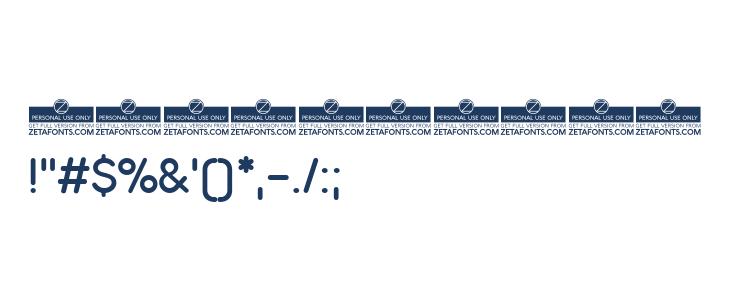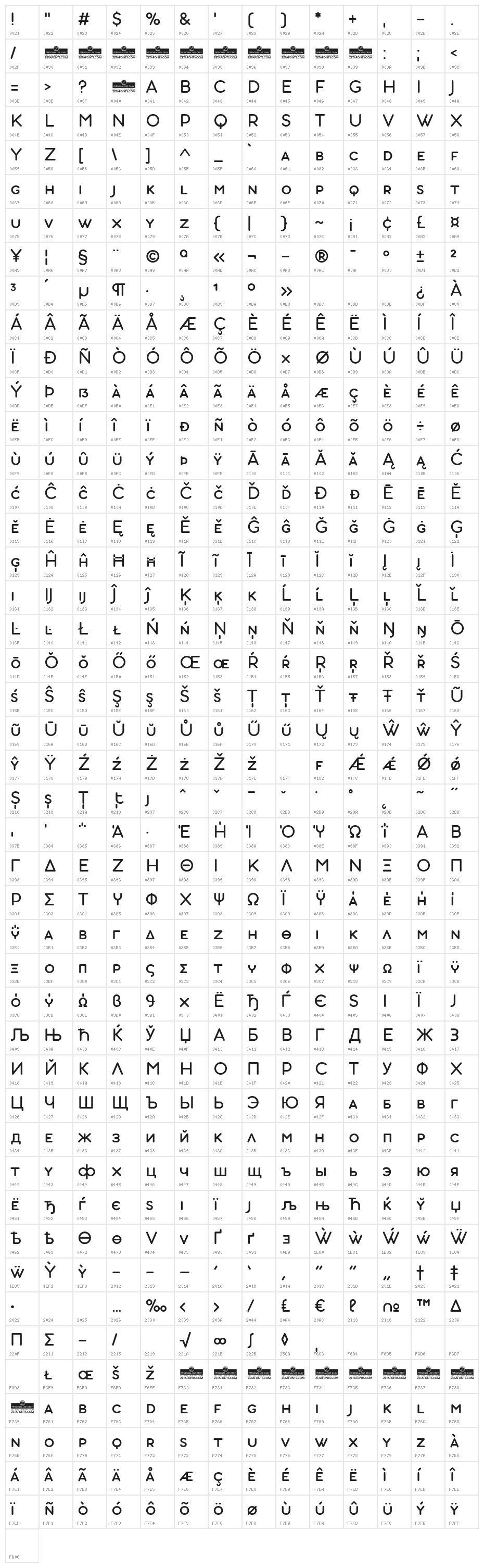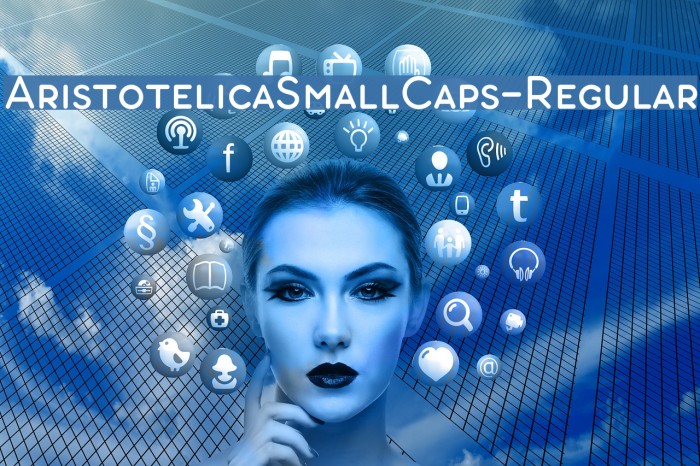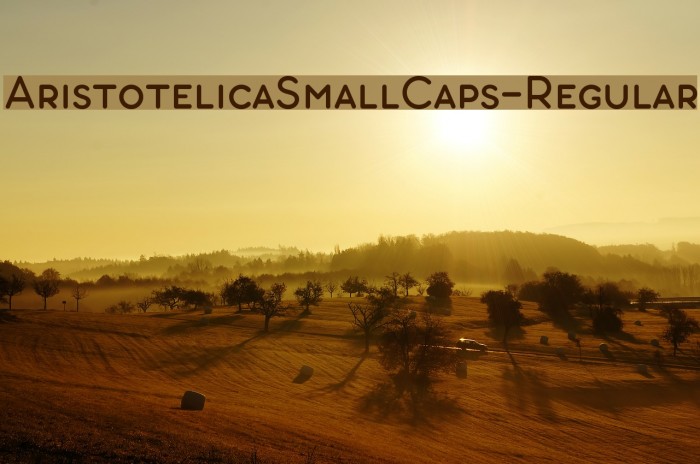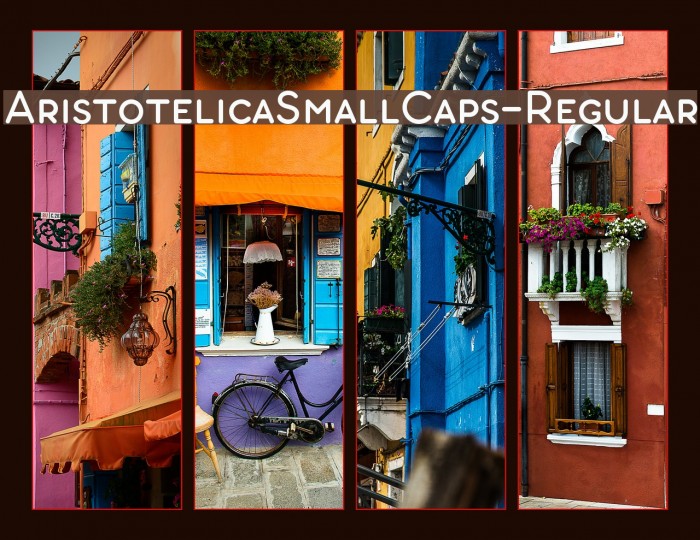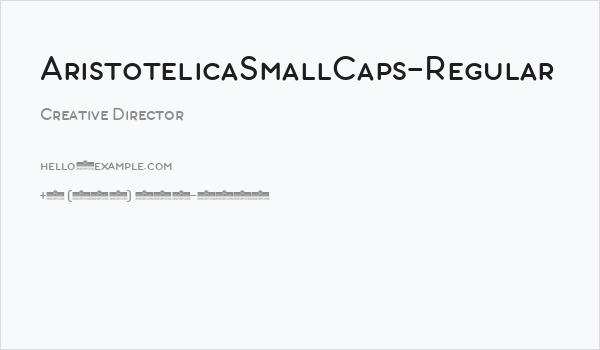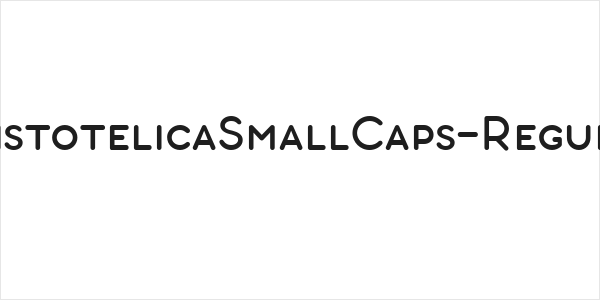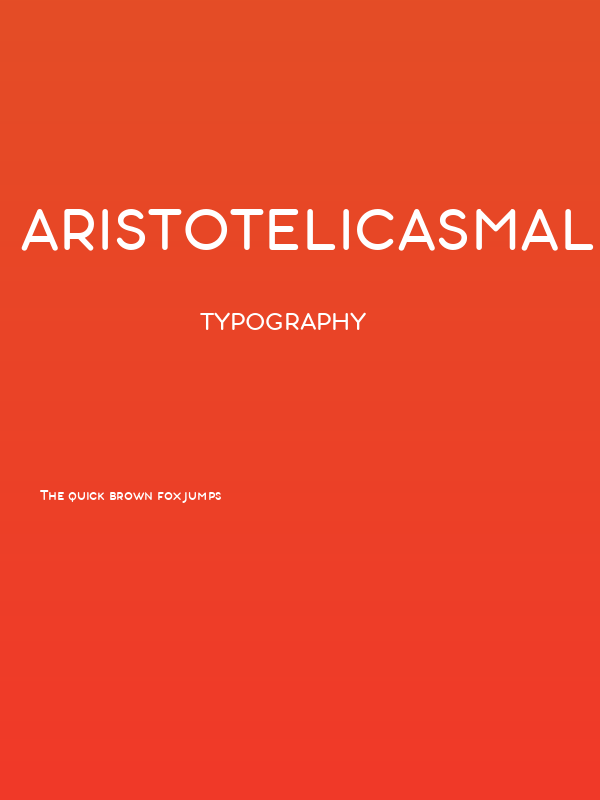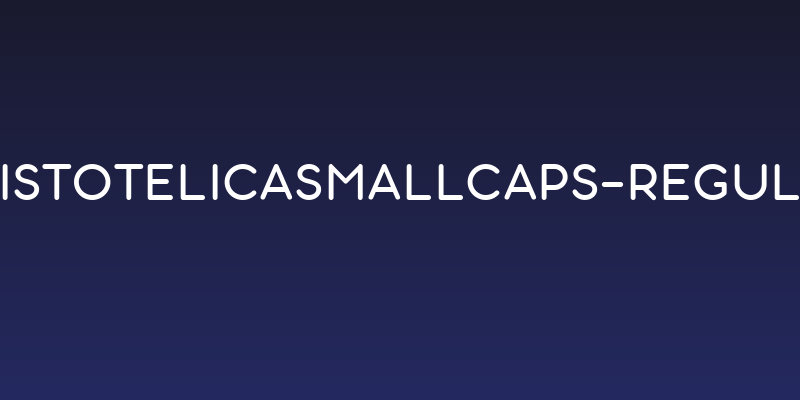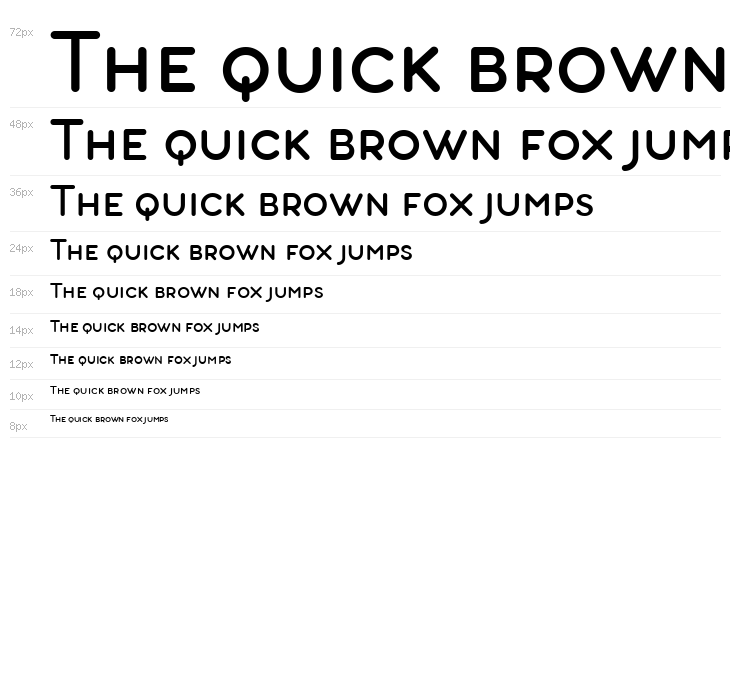
AristotelicaSmallCaps-Regular Font
AristotelicaSmallCaps-Regular Description
This font features a clean and modern design with a focus on simplicity and readability. The characters are well-proportioned, with rounded edges that give a friendly and approachable feel. The uppercase and lowercase letters maintain a consistent style, ensuring uniformity across text. The numerals and special characters are designed to match the overall aesthetic, providing a cohesive look. This font is versatile, suitable for a variety of applications, from digital interfaces to print media.
| Proposed Projects | Ideal for branding, web design, advertising, and editorial projects. |